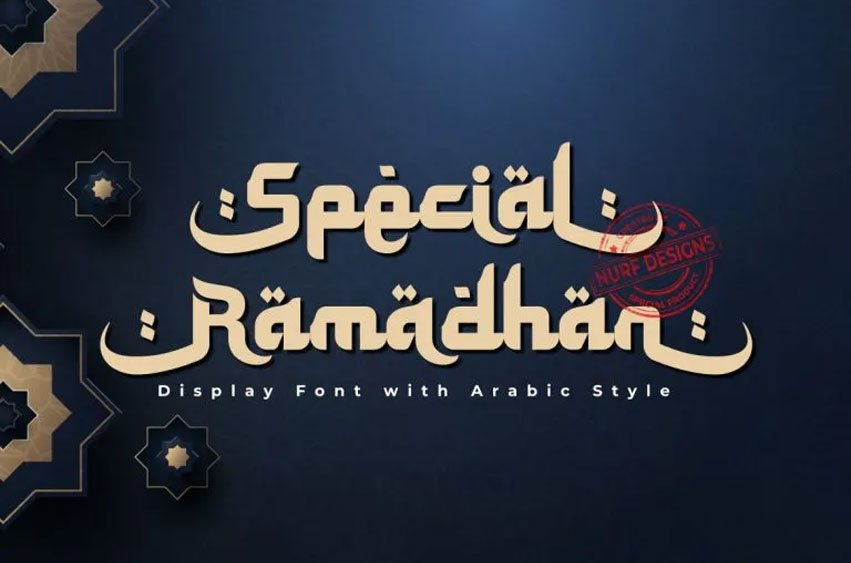
Special Ramadhan Font
Special Ramadhan Font is a show font with an Arabic style, giving every text written with this font an Arabic vibe.
Perfect for design projects requiring Middle Eastern aesthetics.